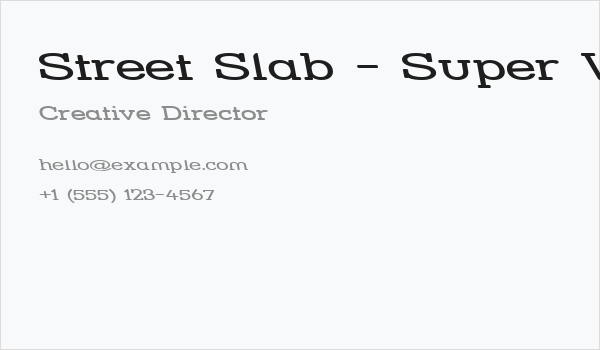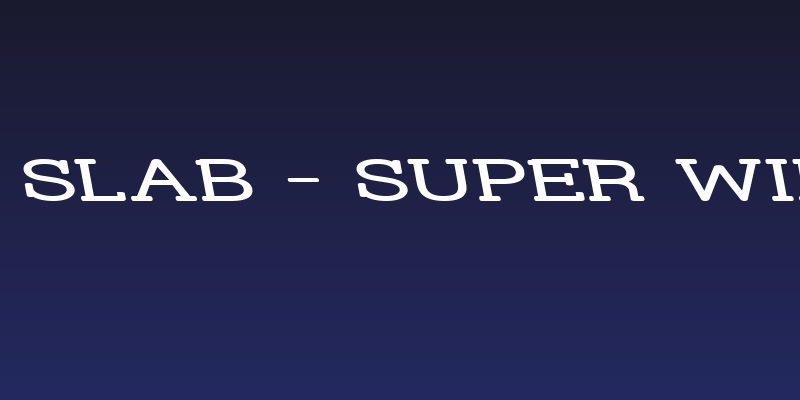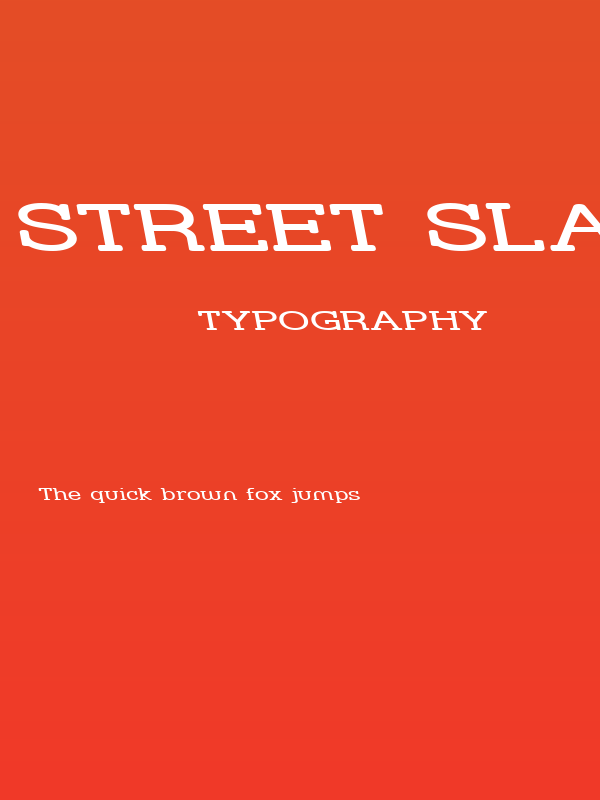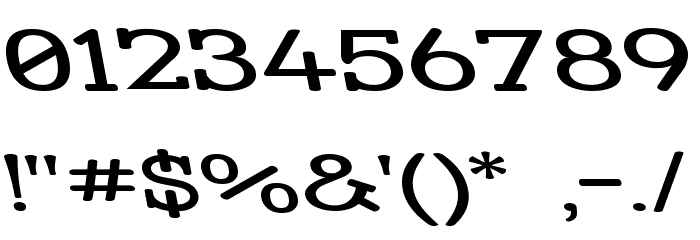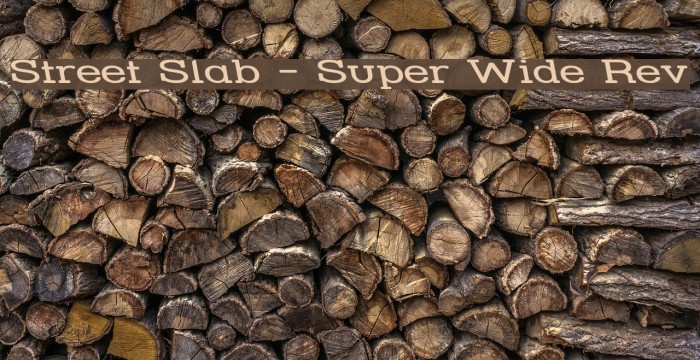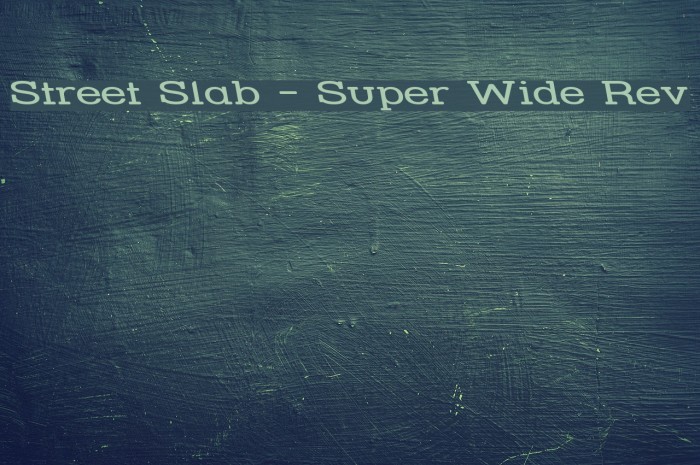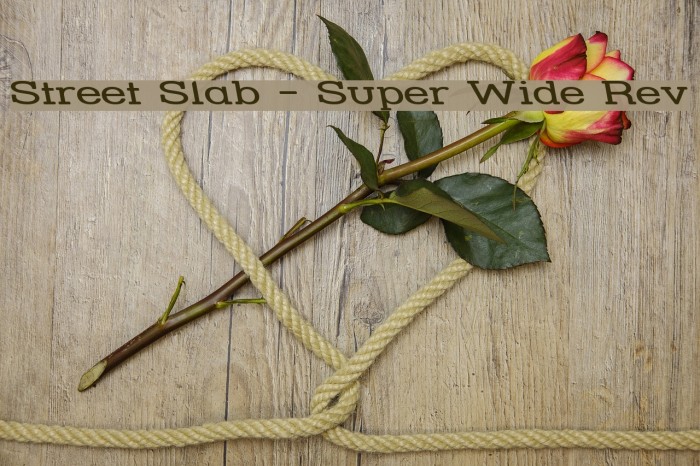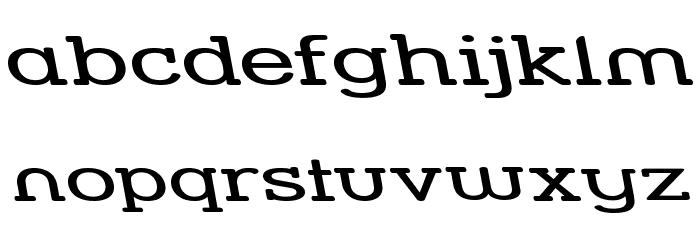
Street Slab - Super Wide Rev Font
Street Slab - Super Wide Rev Description
This font exhibits a bold and confident slab serif style with wide letterforms that command attention. The characters are robust and have a strong presence, making them suitable for impactful designs. The uppercase and lowercase letters maintain a consistent width, contributing to a cohesive look. The numerals are clear and legible, while the special characters add versatility. The overall design is modern yet retains a classic touch, making it adaptable for various creative projects.
| Proposed Projects | Ideal for headlines, posters, branding, and advertising where a strong visual impact is needed. |